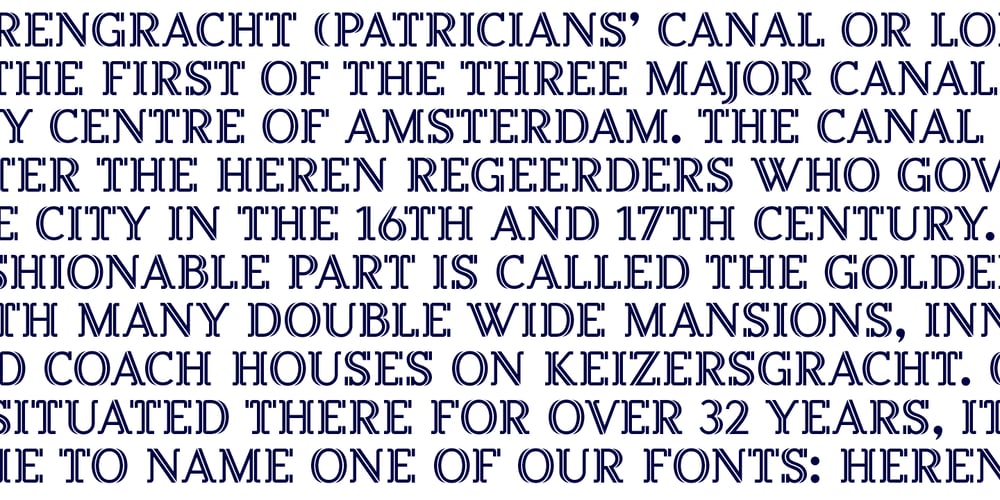
AT Move Herengracht Font Family was designed by André Toet, Jasper Nijssen and published by André Toet Design. AT Move Herengracht contains 1 styles and family package options. HERENGRACHT (Patricians’ Canal or Lord’s Canal) is the first of the three major canals in the city centre of Amsterdam. The canal is named after the heren regeerders who governed the city in the 16th and 17th century. The most fashionable part is called the Golden Bend, with many double wide mansions, inner gardens and coach houses on Keizersgracht. Former bureau of André Toet (SO)Design was situated there for over 32 years, it was about time to name one of our fonts to: HERENGRACHT. Concept/Art Direction/Design: André Toet © 2017